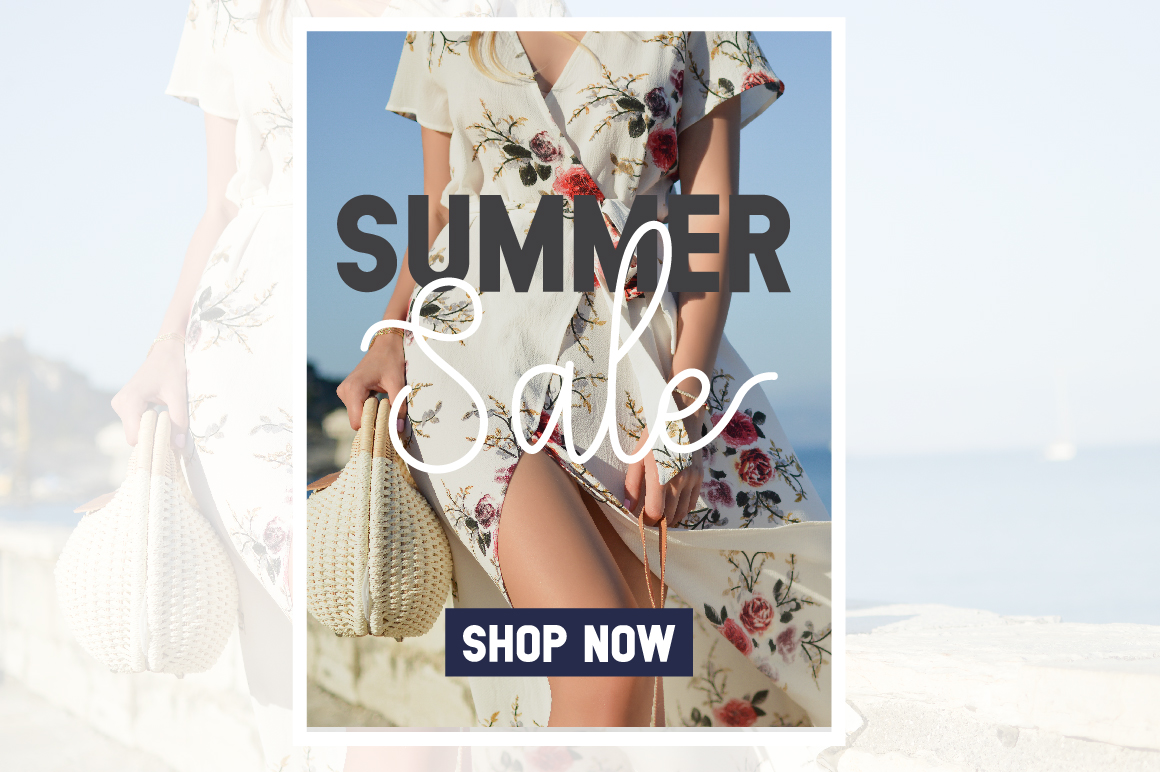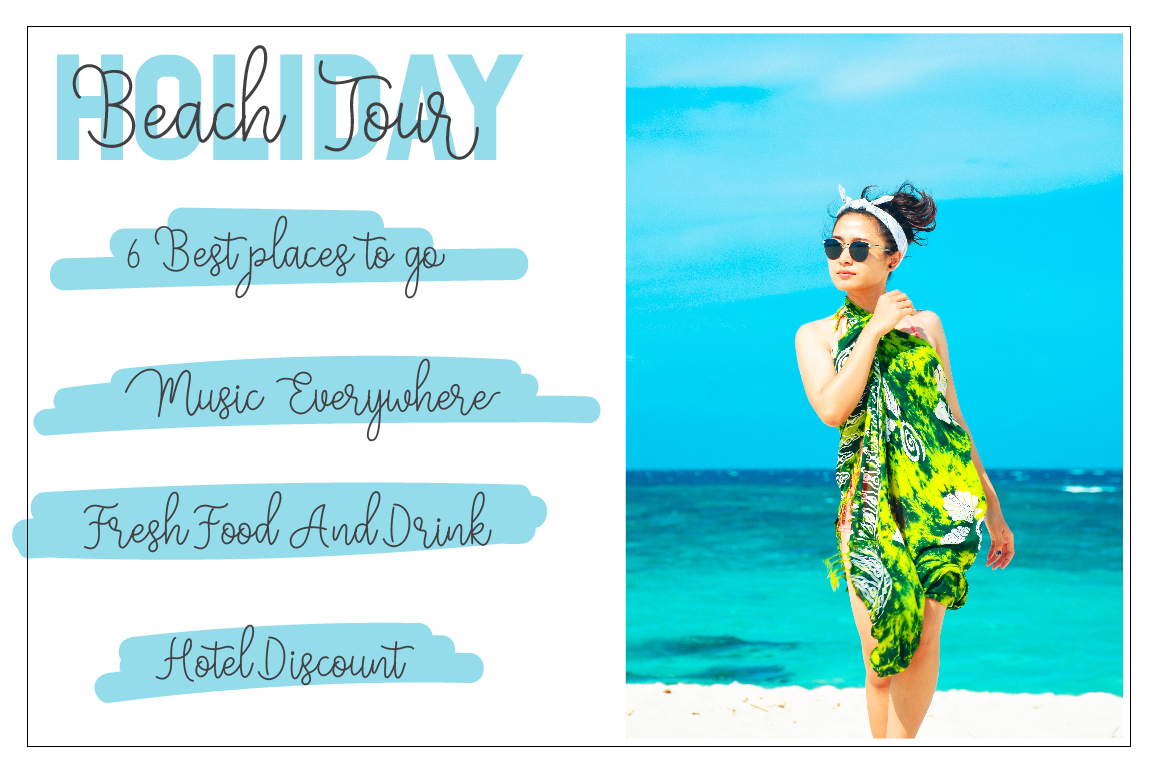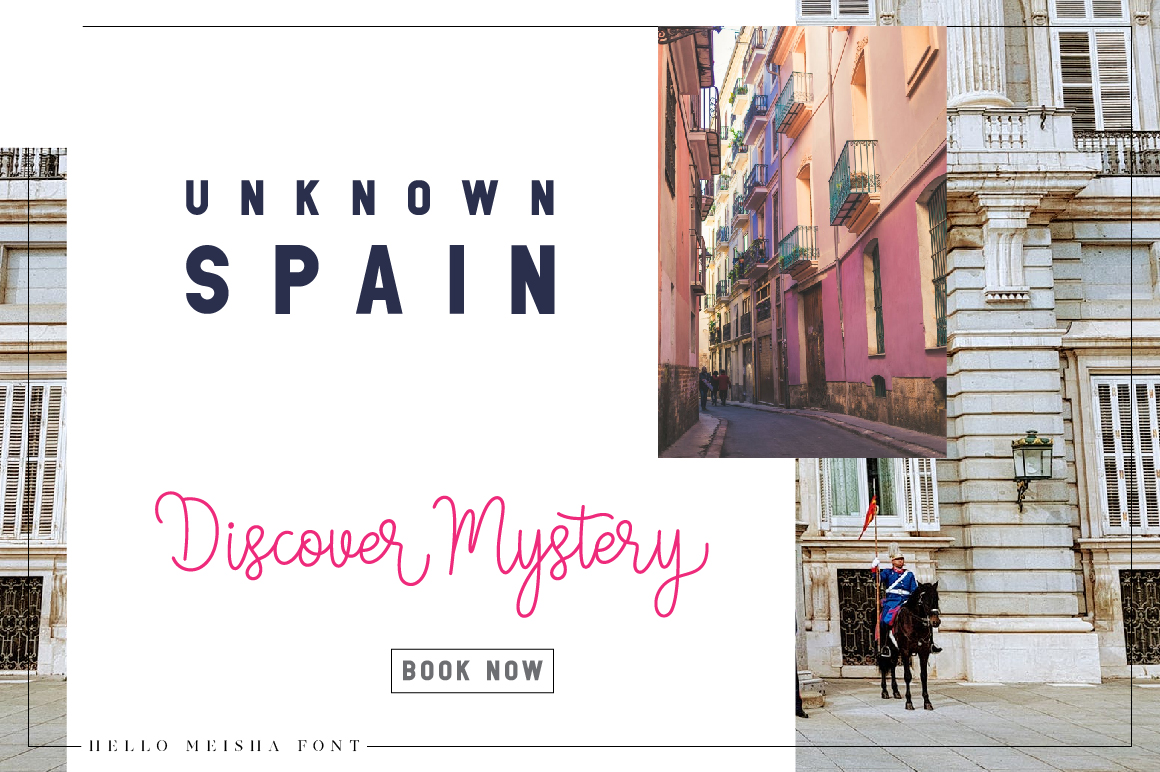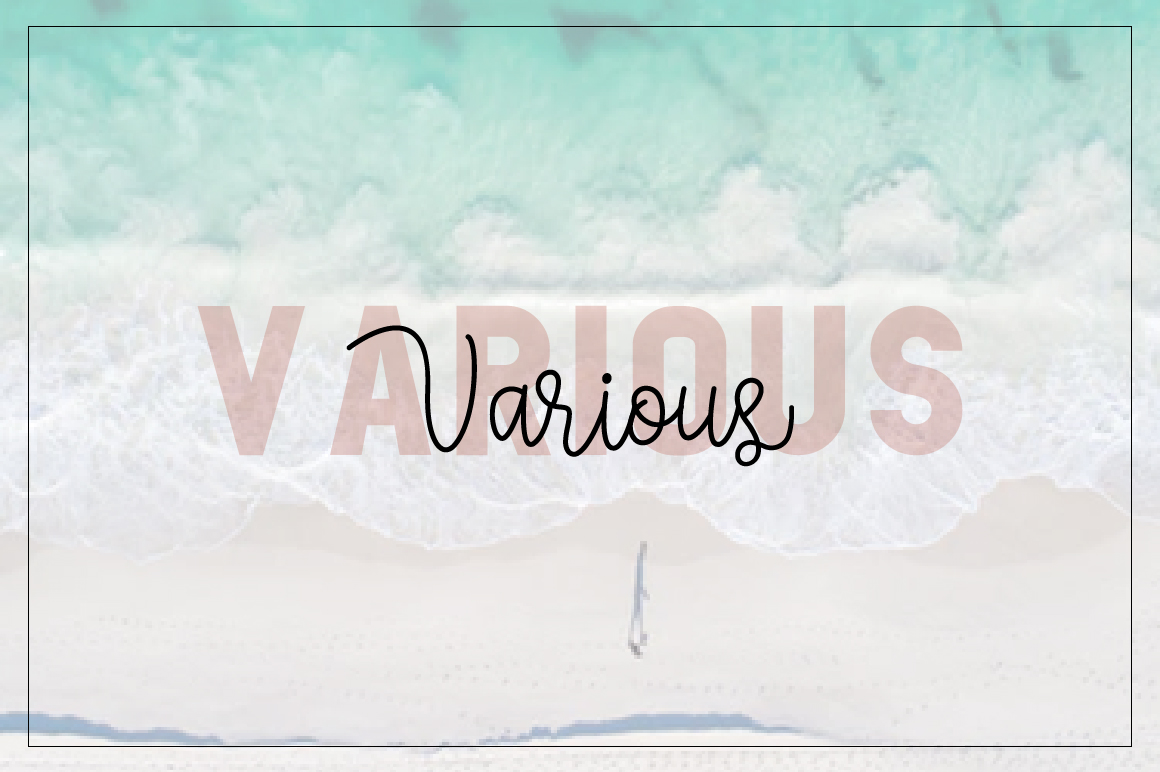
Hello Meisha Free Font
Hello Meisha Free Font is a modern font duo offers gorgeous typographic will perfect for many different projects such as logos & branding, invitation, stationery, wedding designs, social media posts, advertisements, product packaging, product designs, label, photography, watermark, special events or anything that need handwriting taste. This free typeface was designed by a talented Fana Studio. If you like it don’t forget to check out the full version.